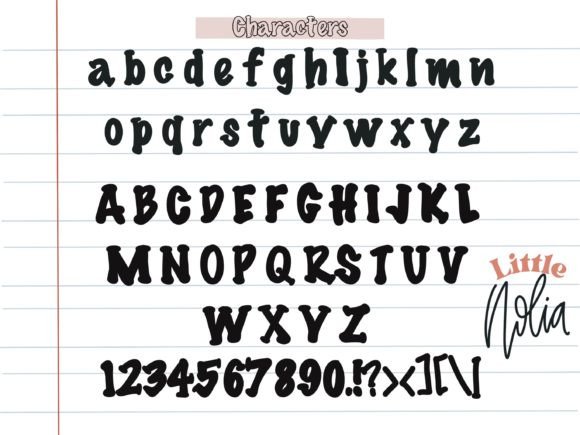
School Poster is a fun display typeface that reminds you of the fun fonts you saw on bulletin boards as a kid. This font is drawn by hand and would look great on anything that you need an extra touch of creativity on.
School Poster Font